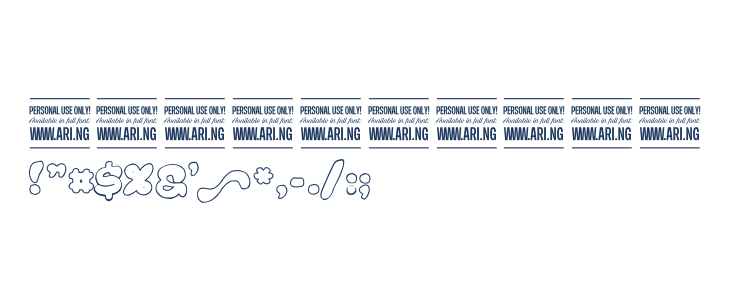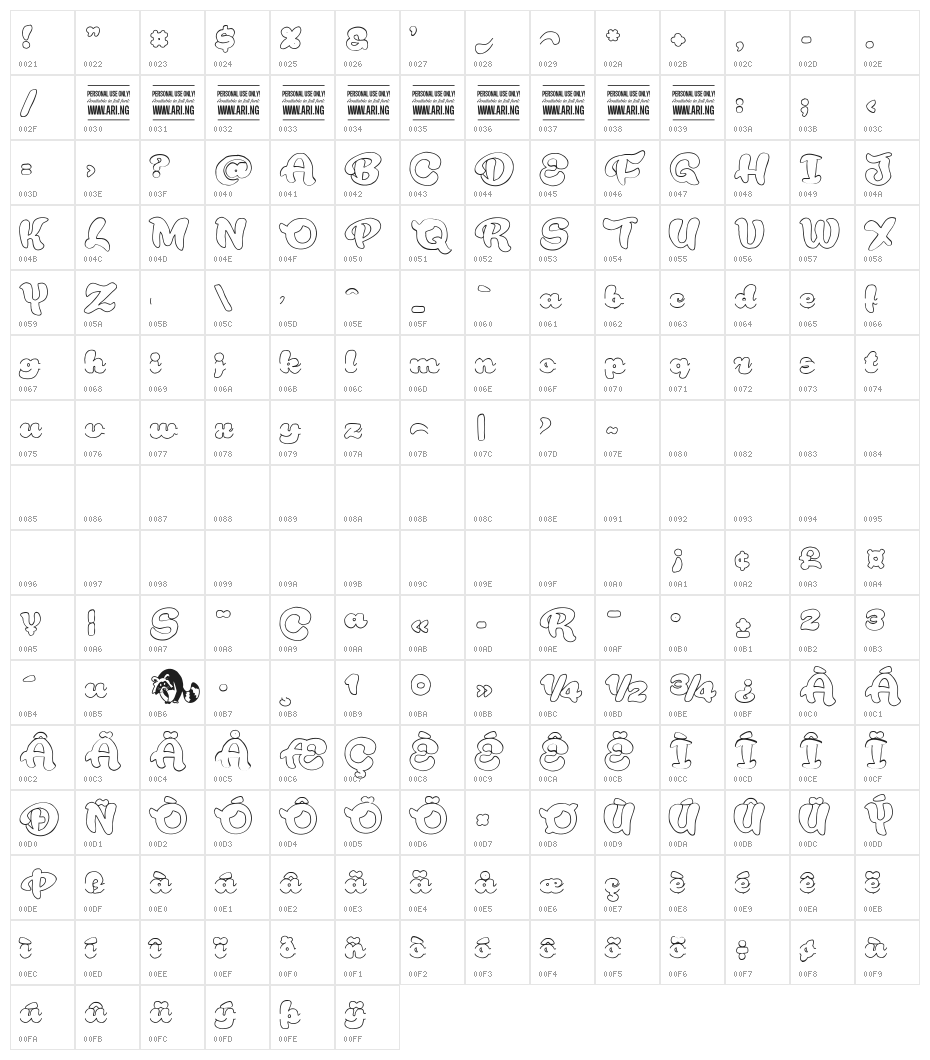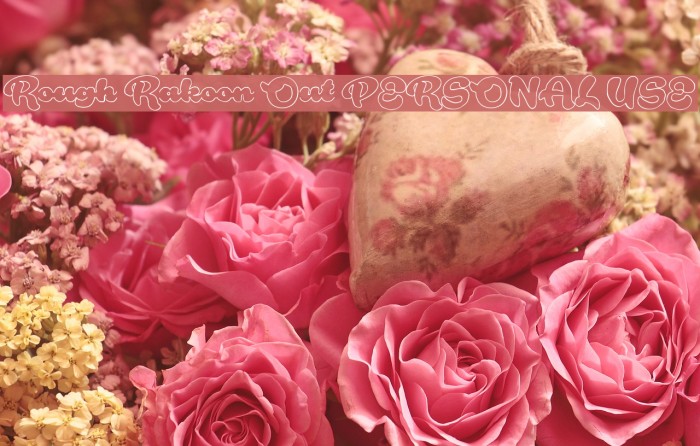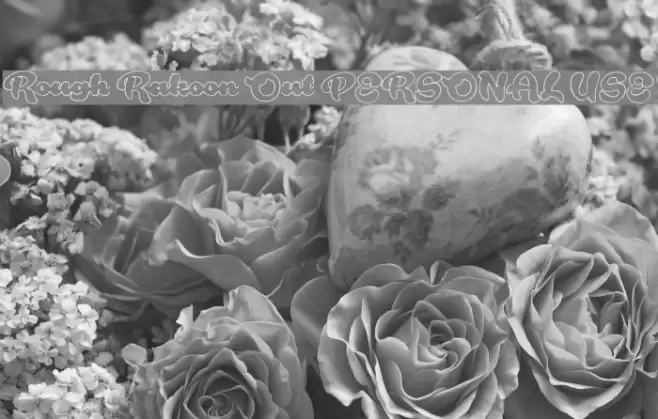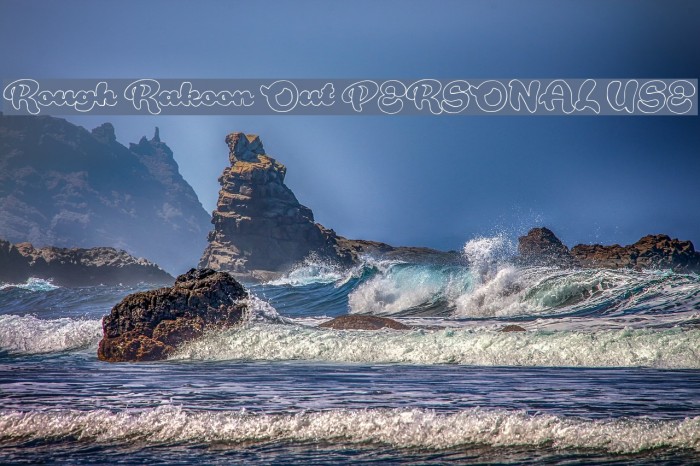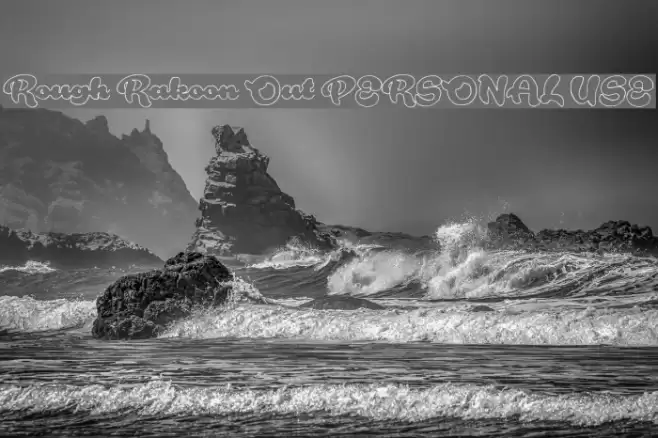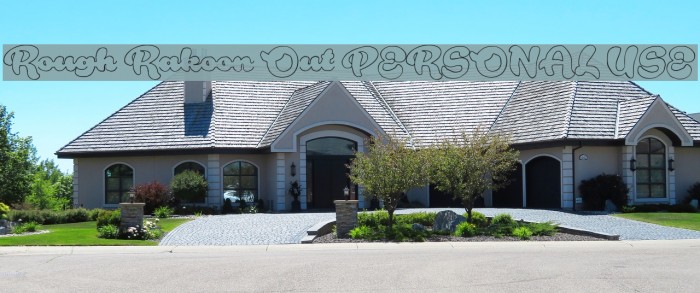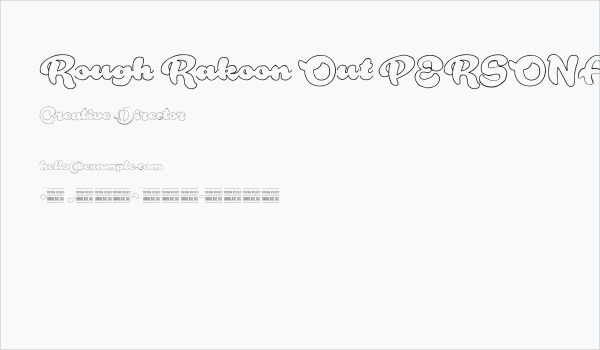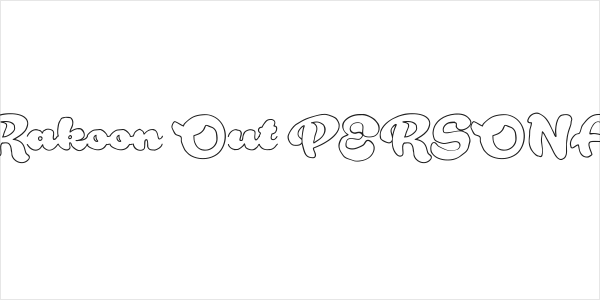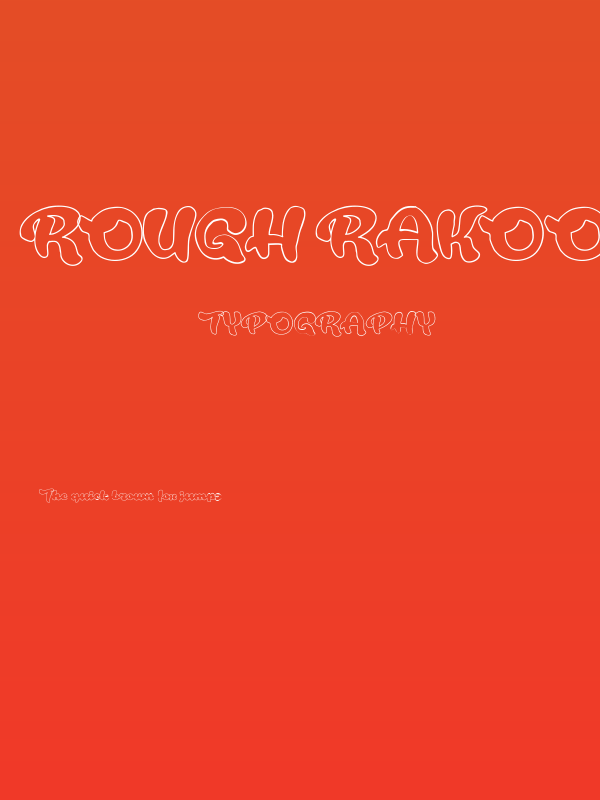
Rough Rakoon Out PERSONAL USE Font
Rough Rakoon Out PERSONAL USE Description
This playful and bold font features a unique bubble-like outline that gives it a fun and whimsical appearance. The characters are rounded and have a consistent thickness, creating a cohesive and friendly look. The uppercase and lowercase letters maintain a uniform style, with slight variations that add character. The numbers and special characters follow the same design principles, ensuring a harmonious overall appearance. This font is ideal for projects that require a touch of creativity and lightheartedness.